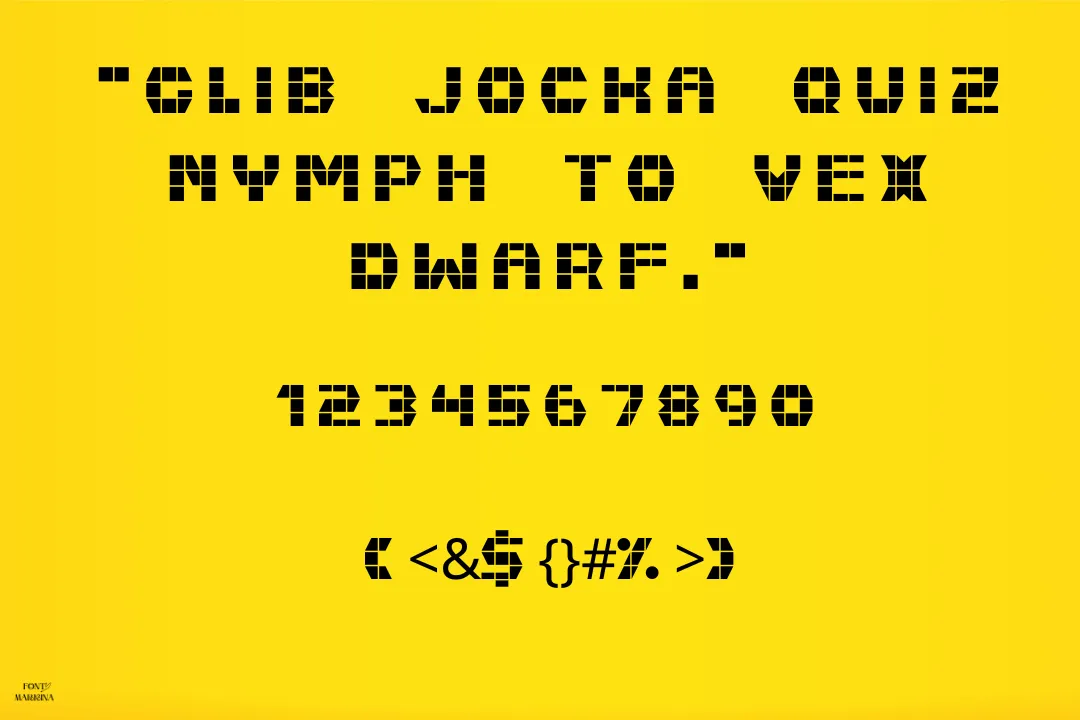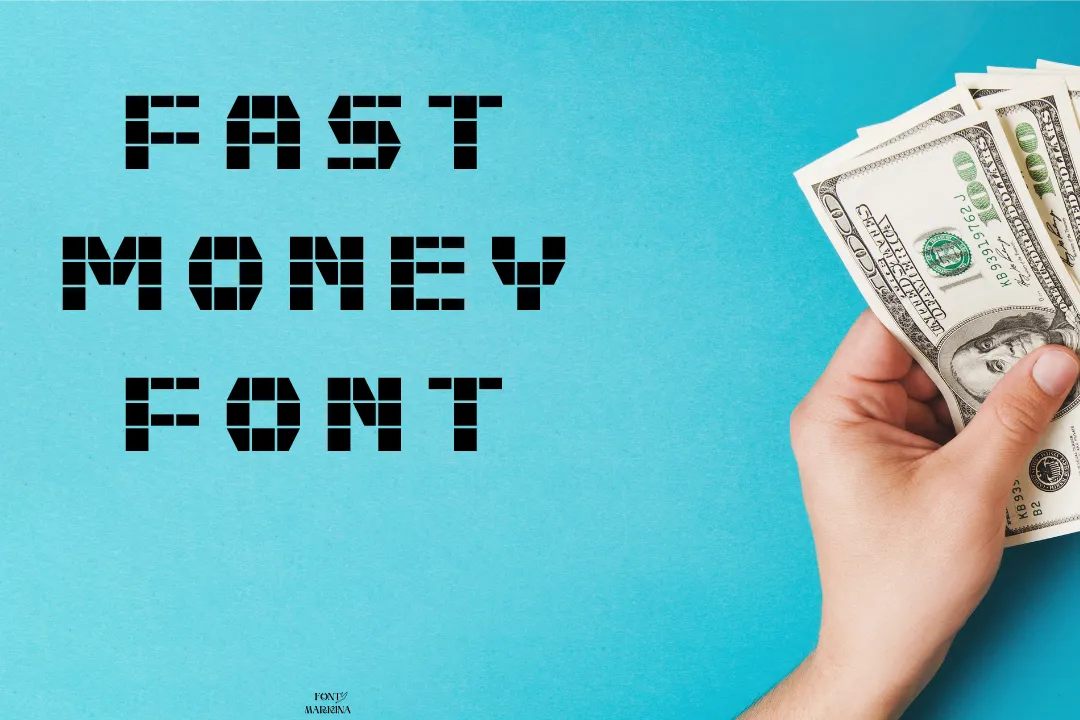
Today, we introduce Fast Money Font which is classified as the classification of Techno family of textures. This logo-based typography is very essential for creating various best designs. James Vipond is the main person who work on this family and create it after his hard work.
The two main features of this family that make it classic are its numerous glyphs and characters. It retains fifty-six exceptional glyphs and also arrives in more than eighty-five characters. The copy-and-paste function of this family makes it more classic in the section of text designs.
This bold feature is similar to Metal Gear Solid font in different aspects. Its online tool which is famous as a generator tool is very helpful in the case of graphic design themes.
Here, we discuss some important uses of Fast Money Font. This typography is mainly used for logos, cards, and certificate designs. If someone wants to design his wedding cards or business cards then it is effective for his projects. Not enough you this family is used in higher projects of graphic designs, and themes.
If you are interested to use this family then you can also use this typeface by making a proper and strong pairing with Ar Berkely font and enjoy its more gorgeous results. Your products look gorgeous and classic.
| Name | Fast Money Font |
| Designer | James Vipond |
| Style | Techno |
What is the type of Fast Money Font?
This typography has 56 glyphs also includes 85 characters and falls in the category of Techno fonts.
Who is the manufacturer of Fast Money?
James Vipond is the main designer of this family of fonts.